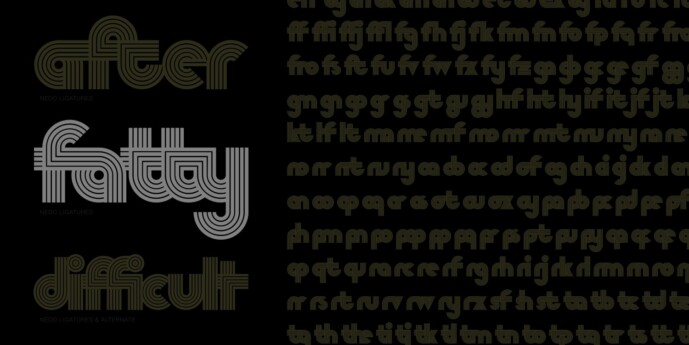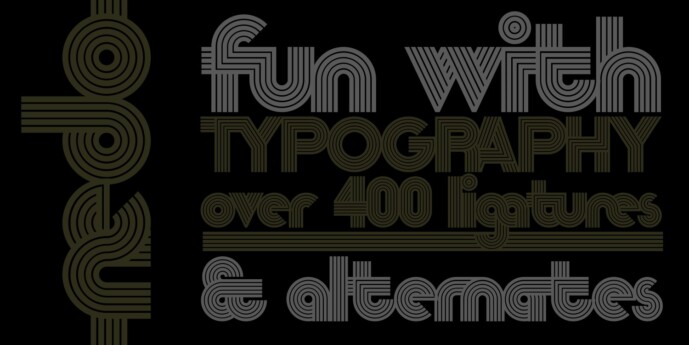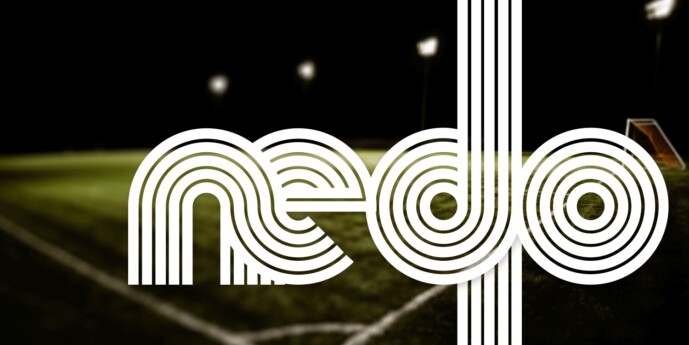
Nedo Font
Designer: Michael Parson
Nedo Font is a retro inspired, single weight display font based on a series of geometric lines. It features a large set of ligatures and some alternate characters that allow a range of possible combinations for text layouts and is best suited for use in large settings.